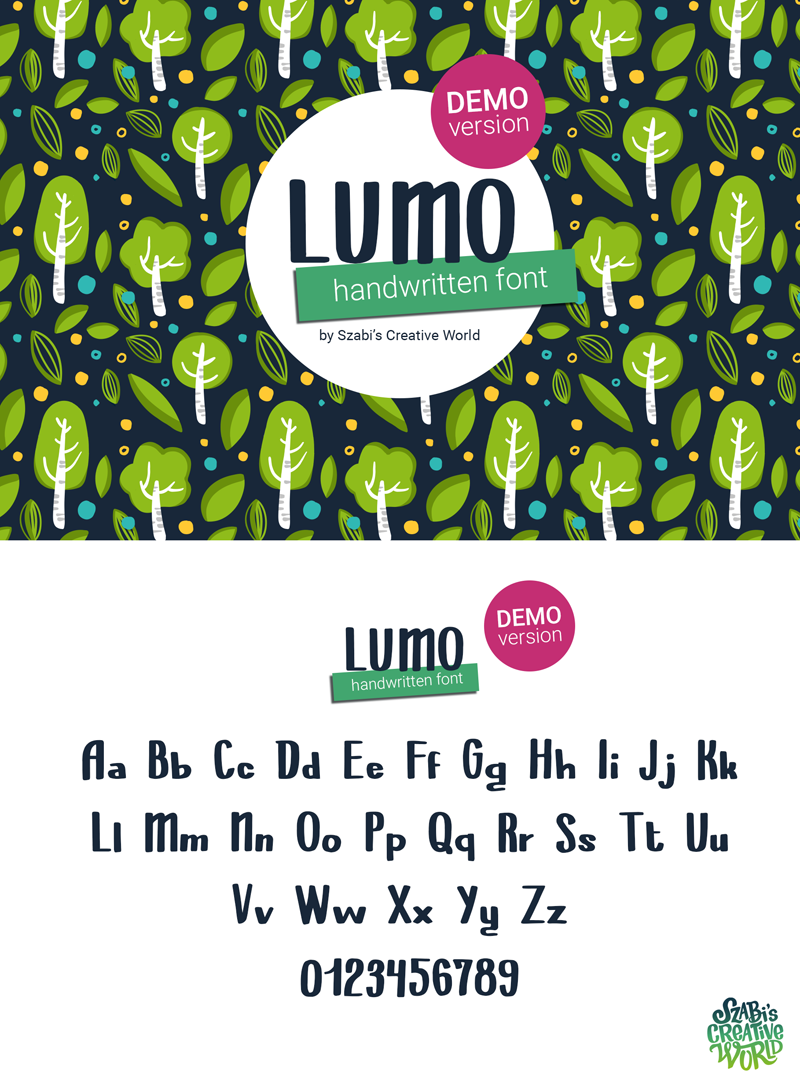
Lumo is a sweet and friendly handwritten font. Its natural and unique style makes it incredibly fitting to a large pool of designs. The only limit is your imagination! !! This DEMO version is free for personal use only. For the full version of Lumo and for commercial use please visit https://creativemarket.com/SzabisCreativeWorld/6091231-Lumo-Handwritten-Font or DM me. Please note, that You MAY NOT sell this font or claim them as your own. You MAY NOT edit or rename this font. You MAY NOT redistribute this font. Thank you & happy creating, Szabi www.instagram.com/szabiscreativeworld |